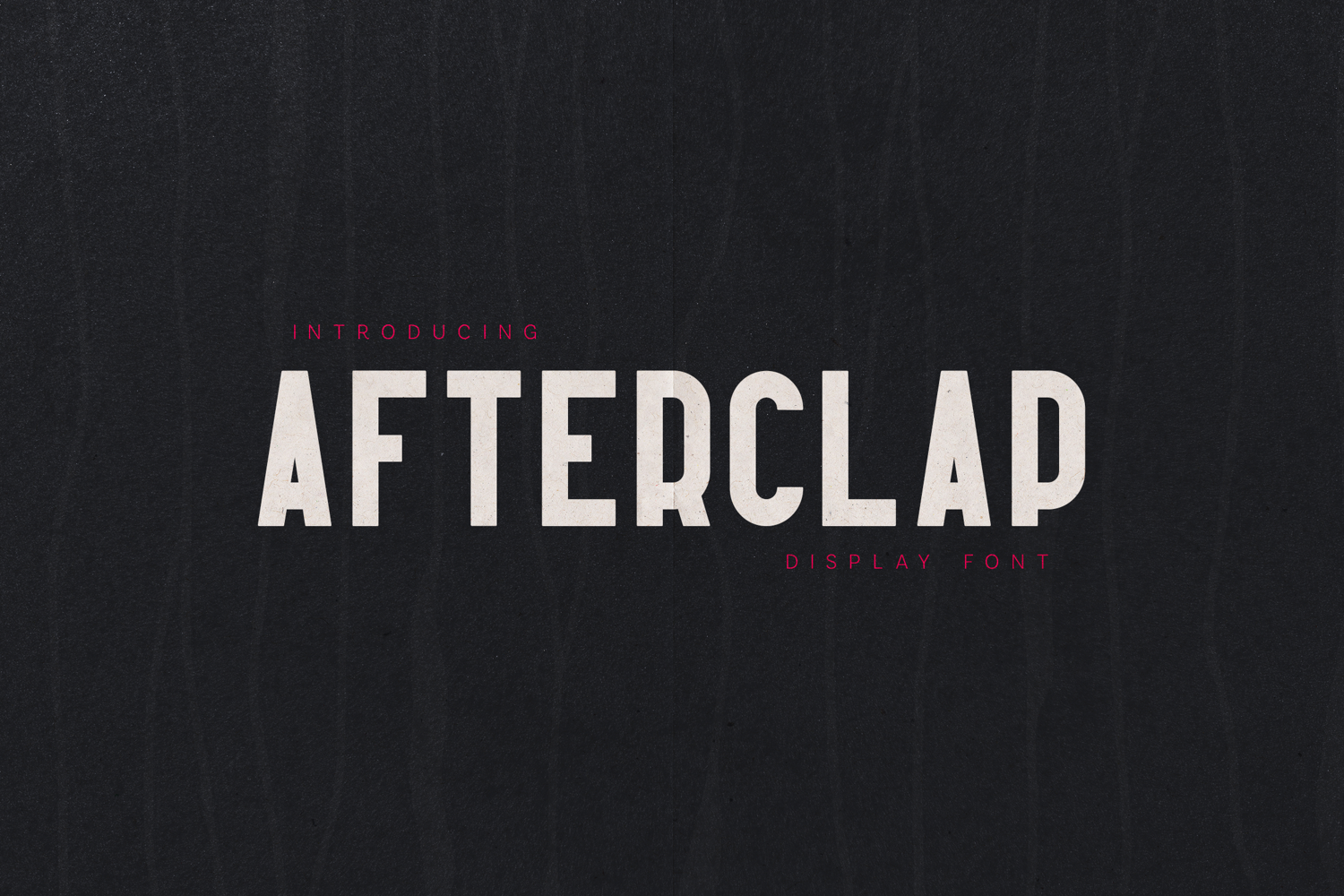
Afterclap Bold Condensed Display Font
Afterclap is a bold condensed display font designed to deliver strong visual impact and modern typographic presence. With its tall proportions, solid letterforms, and clean geometric structure, the typeface creates powerful headlines and striking compositions.
The condensed structure allows more characters to fit within limited space while maintaining excellent readability and visual balance. Its bold strokes and compact spacing give the font a confident and contemporary appearance that works perfectly for attention-grabbing typography.
Afterclap works exceptionally well for branding design, poster typography, editorial headlines, packaging design, modern advertising layouts, magazine titles, social media graphics, and strong visual identity systems. The powerful vertical rhythm of the characters creates typography that feels structured, modern, and highly legible even at large display sizes.
The font includes uppercase letters, lowercase letters, numbers, punctuation, and multilingual characters, allowing designers to create typography across many languages and international projects.
With its bold condensed proportions and modern structure, Afterclap provides a powerful display typeface designed for impactful typography and contemporary design layouts.